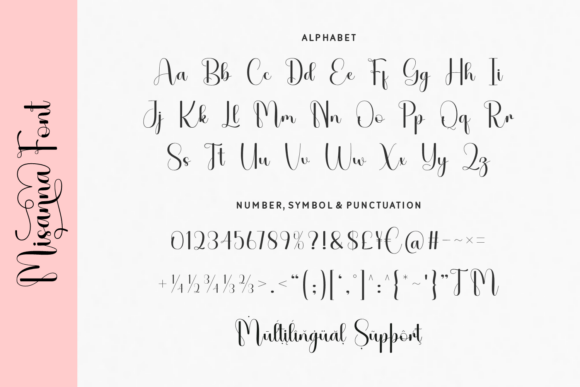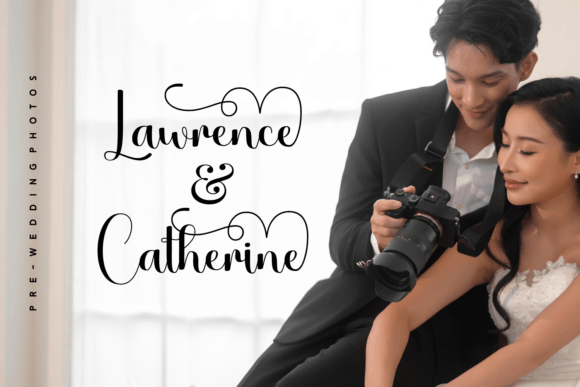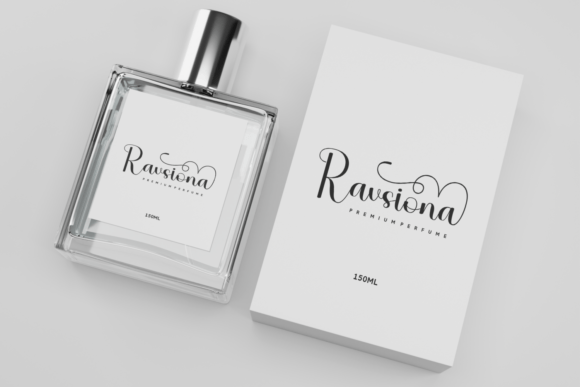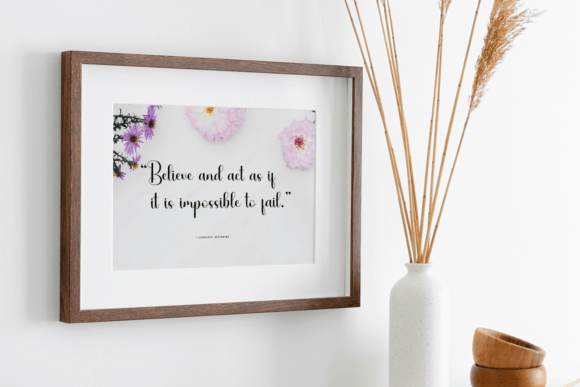
Introduction to Misanna Font
Have you ever been working on a creative project and wished you had the perfect font to bring it all together? For many designers, this is a common dilemma, but it’s one that can be easily solved with the right design resource. For those looking to add a touch of elegance and sophistication to their work, the Misanna Font is an ideal choice.
With its flowing curves, intricate swashes, and refined design, the Misanna Font effortlessly adds a classy touch to any project, whether it’s a wedding invitation, luxury branding, or fashion design. Its versatility and high quality make it a valuable asset for designers looking to take their work to the next level.
Key Features of Misanna Font
- High-quality, elegant script font with a transparent background, perfect for creative projects.
- Designed with a high level of detail, the Misanna Font features intricate flourishes and elegant curves, adding a touch of sophistication to any design.
- Perfect for use in creative projects such as logos, invitations, and digital art, where a unique and elegant font is required.
- Easy to customize and manipulate, making it a versatile design resource for designers and artists.
Honest Review: Misanna Font
I recently stumbled upon the Misanna Font, a high quality font that’s perfect for any creative project. I was excited to dive in and see what it had to offer.
What works well: ✨ The font is highly legible and versatile, making it suitable for a wide range of applications, from body text to headings. The design is clean and modern, with a transparent background that allows for seamless integration with any background image or color.
What doesn’t work well: ⚠️ The font family is quite limited, with only a few weights and styles available for download. While this isn’t a major issue, it would be great to see more variations in the future.
- Suitable for body text and headings
Overall, I’m impressed with the Misanna Font and would definitely recommend it to fellow designers. It’s a great resource to have in your toolkit, and I’m excited to see how it will be used in future projects.
Tips for Getting the Most Out of Misanna Font